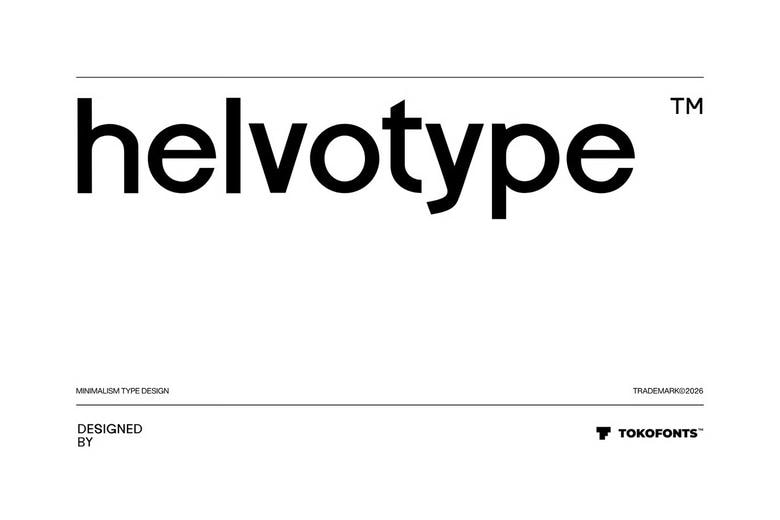
Helvotype Font
Helvotype Font is a contemporary and beautiful display typeface that is created in a clean and minimal style, which is ideal in logo and branding projects. This font is inspired by the classic simplicity of Helvetica, Montserrat, and Futura, providing a sophisticated geometric framework with a modern twist. Its simplicity and balance create a strong visual presence, ideal for fashion brands, corporate identities, and modern design systems that value clarity and precision.
Helvotype font is a versatile and functional font that can be easily used in a broad spectrum of applications, both in professional corporate layouts and in fun kids ideas. The minimal and clean design guarantees great readability and preserves a bold display nature, which makes it appropriate in logos, branding, and editorial compositions. Helvotype is one of the contemporary fonts that are elegant, simple, and easy to use to achieve effective visual communication.
Helvotype Sans Serif Font